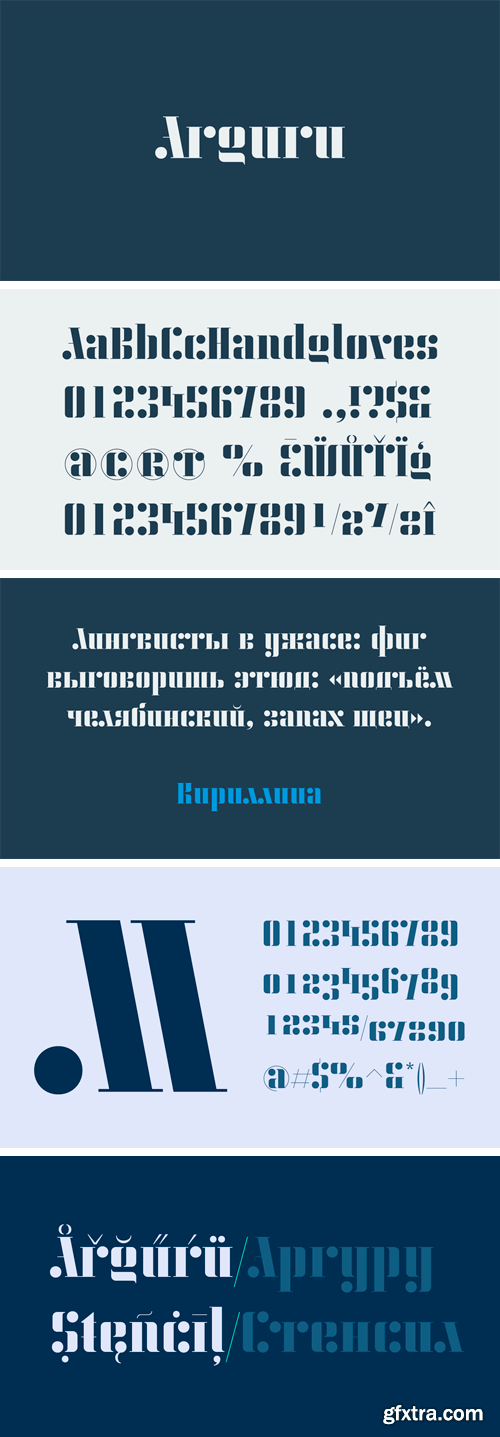
KD Arguru Stencil is a geometric display font that will give your projects an elegant look. It breaks away from traditional stencil faces by using circle as a main design element. Originally published in 2014, it’s now been updated with changes to letter shapes, curves, OT features.